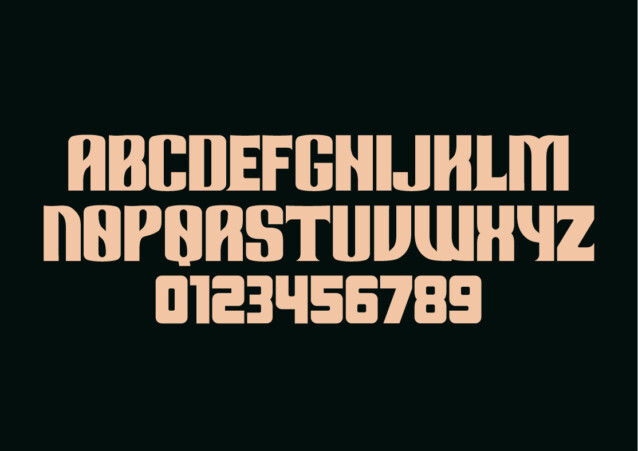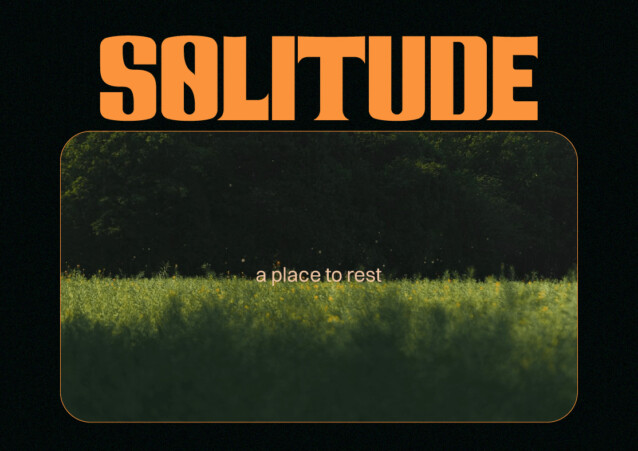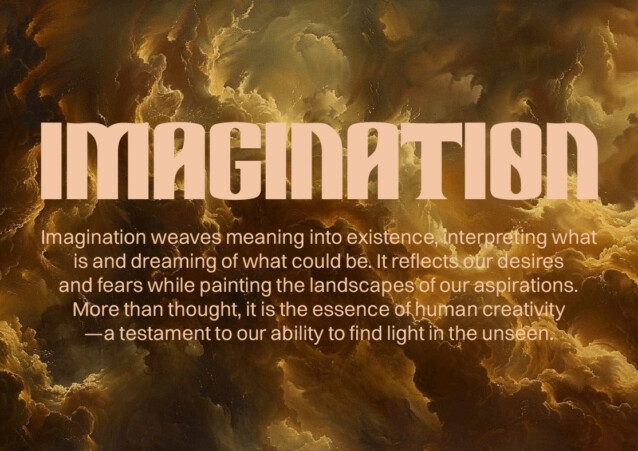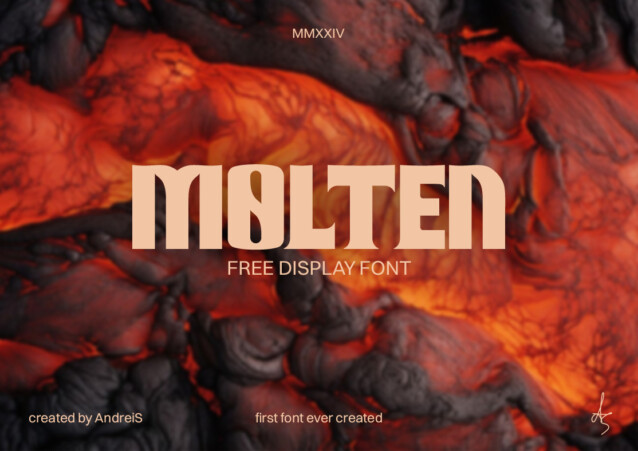
Molten Display Font
Molten Display Font is a free bold sans serif font designed to make statements that stand out. With its strong lines and solid structure, it captures the energy and resilience of modern cityscapes. Perfect for impactful headlines, posters, and branding, Molten commands attention with its robust, confident style, bringing intensity and clarity to any design.